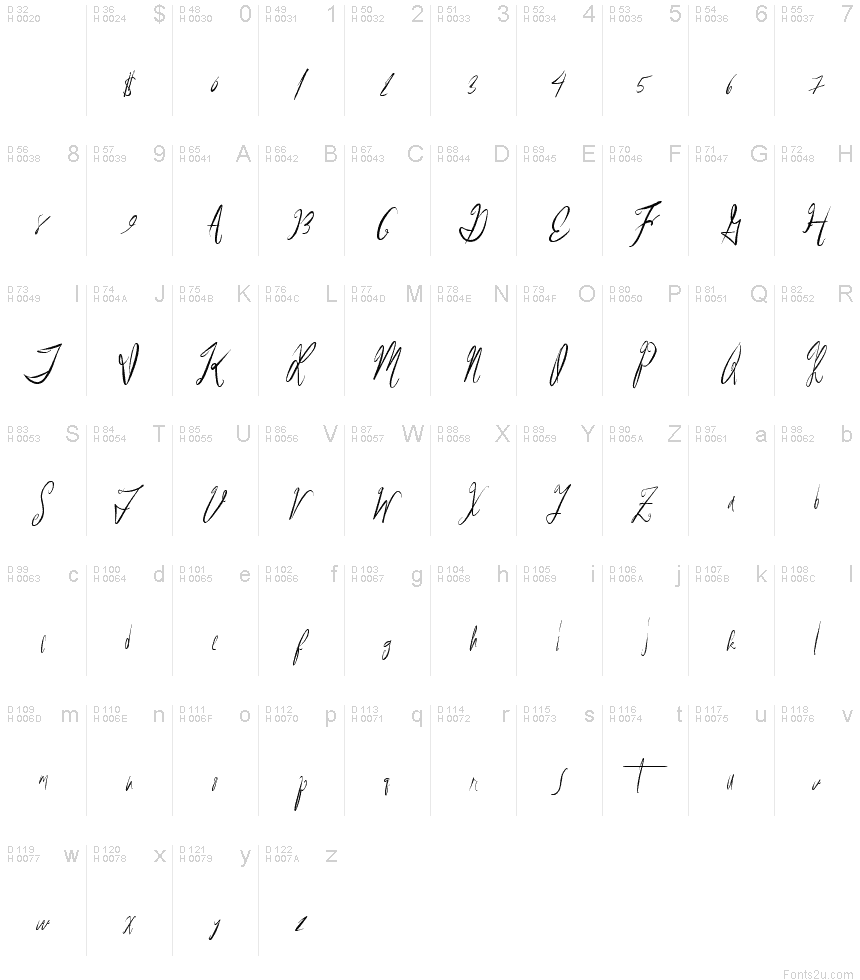
Reasonable Speculation by Xerographer Fonts is a free handwritten font with the restless sweep of an oversized signature. Narrow letters loop far above and below, with changing stroke widths and long crossings that connect neighboring forms.
Fashion branding and album artwork can use those extravagant loops as a theatrical mark. Romantic invitations and event posters suit the same quality, especially beside loose line drawings. Magazine covers are another natural home for its ink-drawn silhouette.